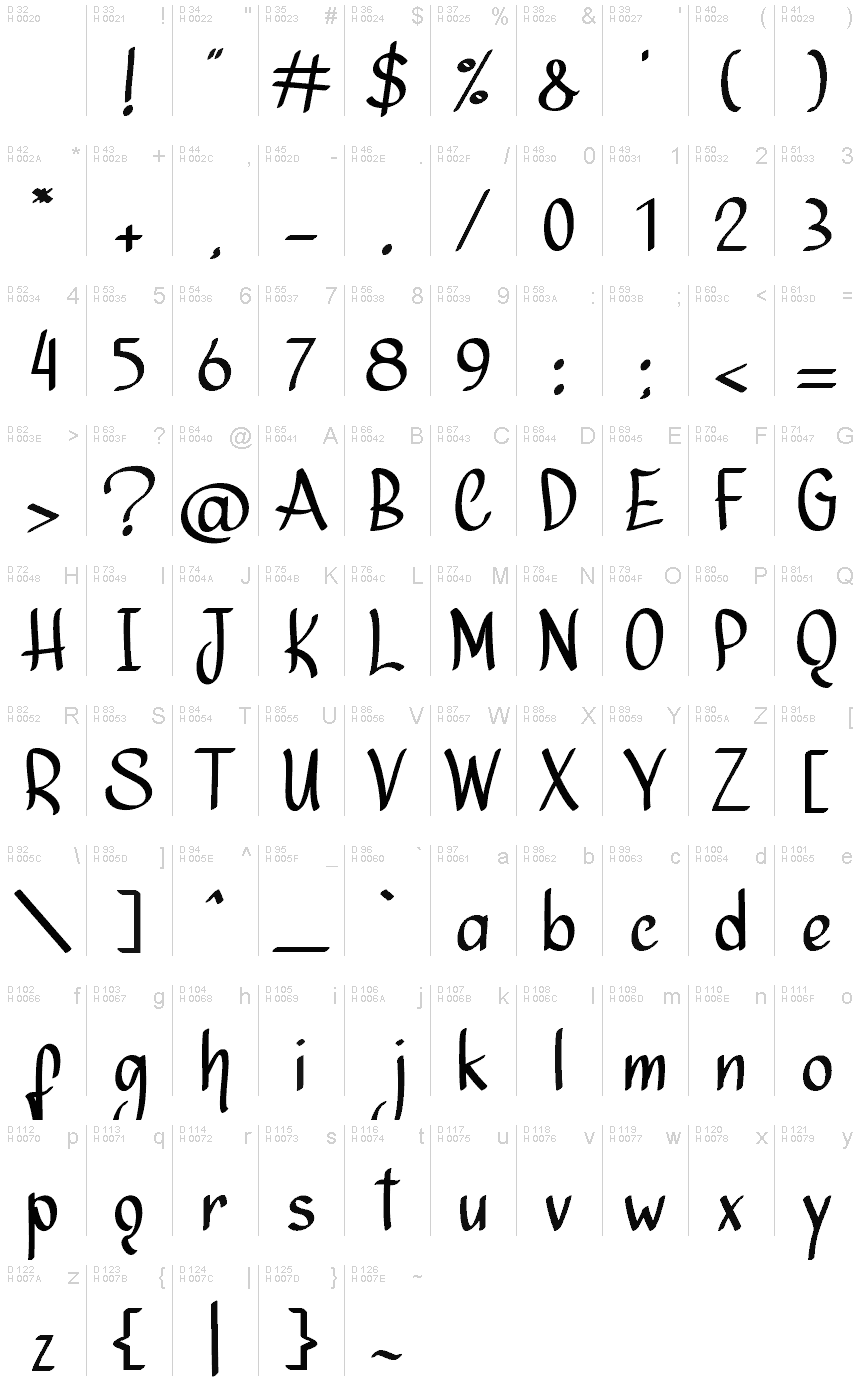
Ninja Julietta
Ninja Julietta is a captivating handwritten font crafted by Aldedesign. Its striking calligraphic style, with its dynamic strokes and playful flourishes, evokes a sense of effortless elegance.
The font's organic flow and natural variations lend themselves beautifully to a wide range of applications, from elegant wedding invitations to edgy branding campaigns. Whether used for headlines, body text, or decorative elements, Ninja Julietta's versatility allows designers to infuse their work with a distinctive, handcrafted aesthetic.
This font's unique personality and visual appeal make it a compelling choice for projects seeking to convey a sense of artistry, authenticity, and individuality.